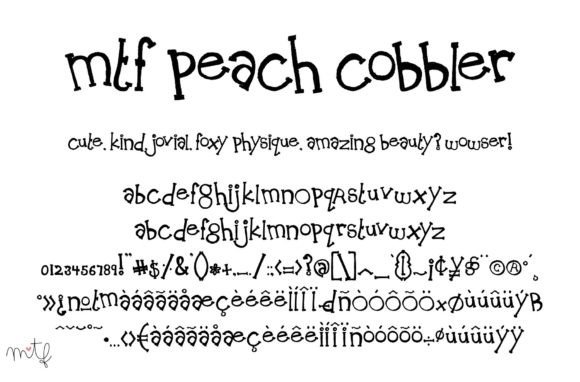
Journey through the world of professional branding with Peach Cobbler, the captivating serif font engineered to elevate your business correspondence to new heights. Indulge in the elegance and charm of this font as it dances off the page, weaving a tapestry of sophistication and clarity.
Peach Cobbler, crafted with meticulous attention to detail, exudes a delightful personality that sets it apart from the mundane crowd of fonts. Its warm and inviting curves evoke a sense of nostalgia, while its clean lines retain a timeless appeal. No matter the nature of your business, Peach Cobbler gracefully adapts, lending a touch of distinction to letters, documents, marketing materials, and digital presentations.
Imagine the impact as your words, adorned in Peach Cobbler's timeless beauty, glide across the page, leaving an unforgettable impression on clients and colleagues alike. This font is the perfect companion for crafting business letters that exude confidence, reports that command attention, and presentations that captivate audiences. With Peach Cobbler, your written words become more than mere text - they transform into a testament to your professionalism and commitment to excellence.
Beyond its aesthetic appeal, Peach Cobbler is a font crafted for functionality. Its highly legible design ensures seamless readability, even in lengthy documents. The generous spacing between characters and the carefully balanced weight of each stroke prevent visual clutter, allowing readers to effortlessly absorb the content of your communications.
But Peach Cobbler is not merely a practical font; it is a work of art that breathes life into your designs. Its playful nature adds a touch of whimsy to formal documents, while its understated elegance lends a touch of sophistication to casual correspondence. With Peach Cobbler, you have a font that seamlessly transitions from the boardroom to the coffee shop, adapting to any environment with grace and poise.
Embrace the endless possibilities that Peach Cobbler presents and watch as your written communications attain new levels of effectiveness and engagement. Let this font be your partner in crafting documents that resonate with professionalism, charm, and clarity.